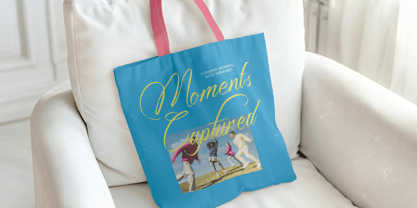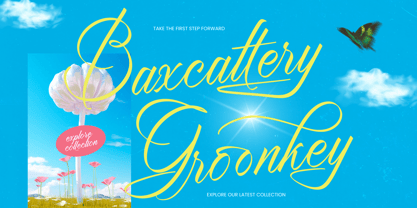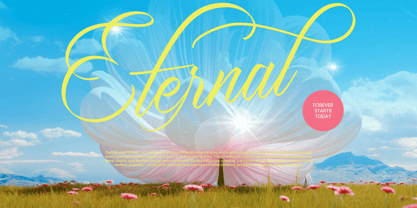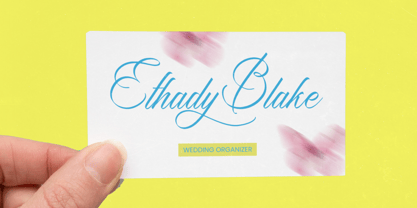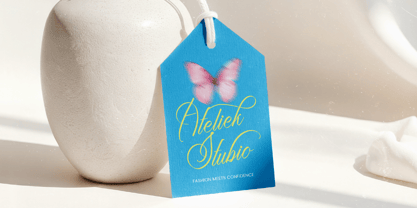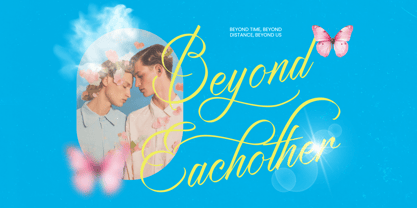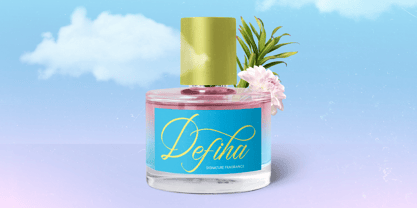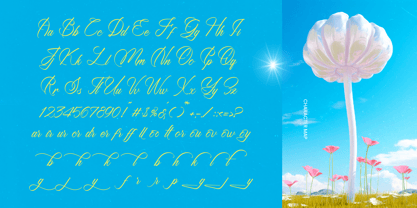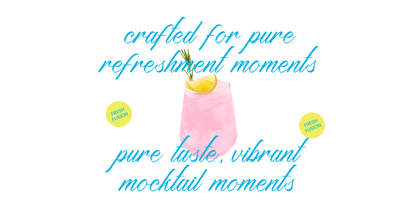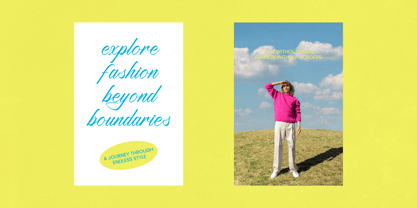
Baxcattery Groonkey
by Letterena Studios
The Baxcattery Groonkey Font Family was designed by Heru Utama Putra and published by Letterena Studios. Baxcattery Groonkey contains 2 styles and family package options. More about this family
Baxcattery Groonkey - Modern Calligraphy
Elevate your creative vision with a typeface that embodies movement and grace. Baxcattery Groonkey - Modern Calligraphy is a masterpiece of organic flow and artistic flair, designed to bring a sense of hand-drawn elegance to every project. Its sweeping strokes and rhythmic energy capture a sophisticated aesthetic that is both contemporary and timeless, ensuring your message resonates with maximum visual impact.